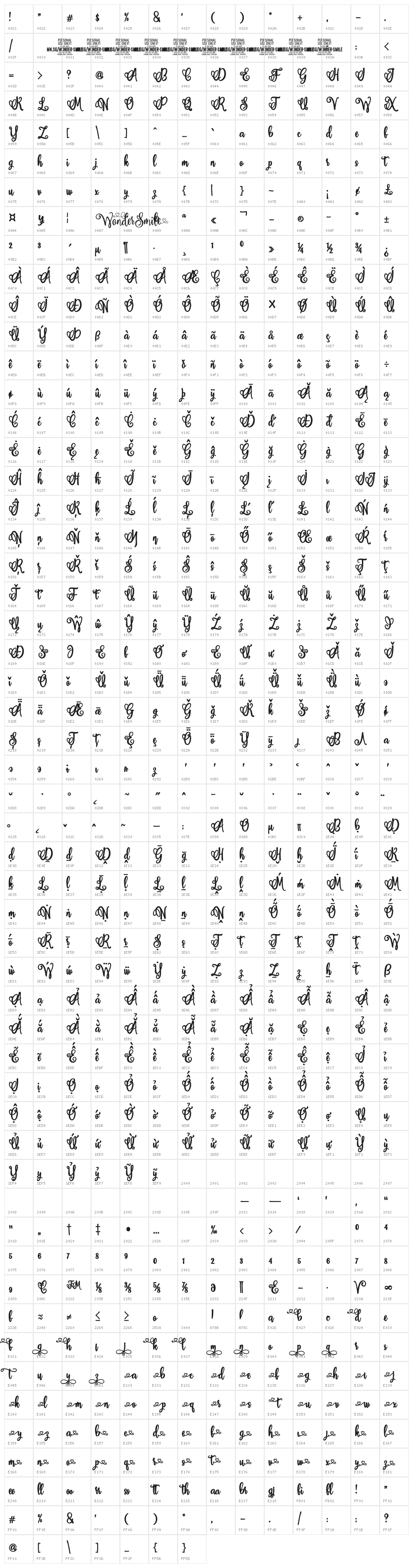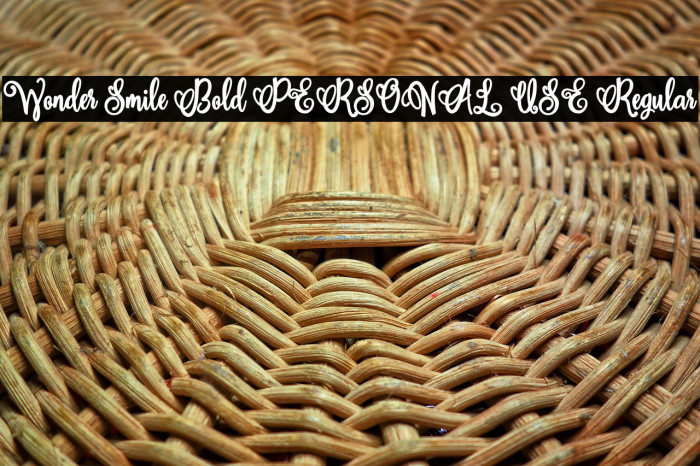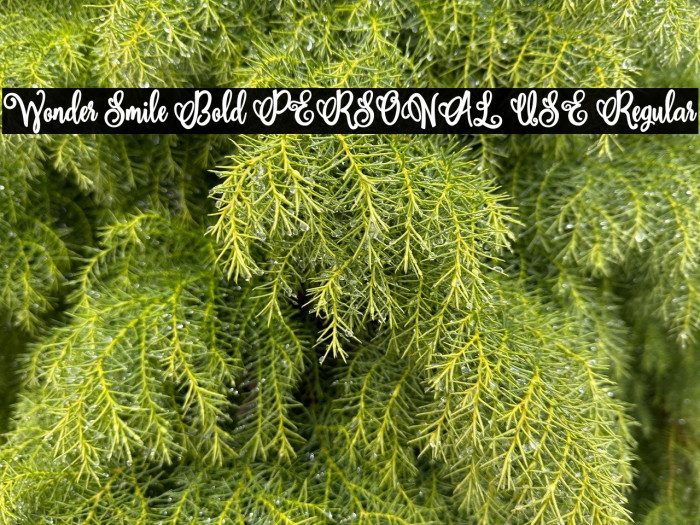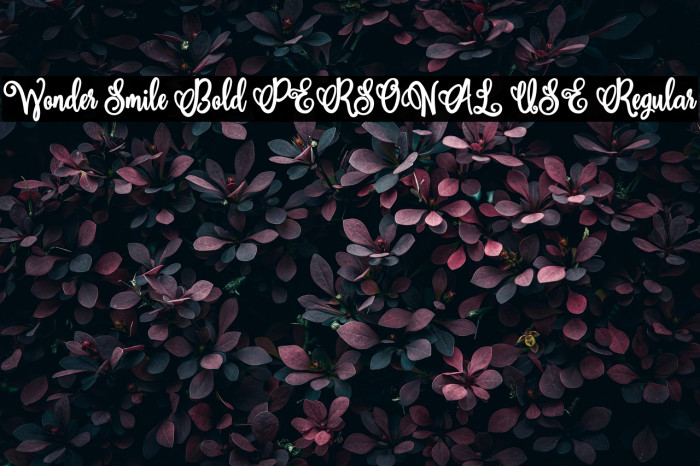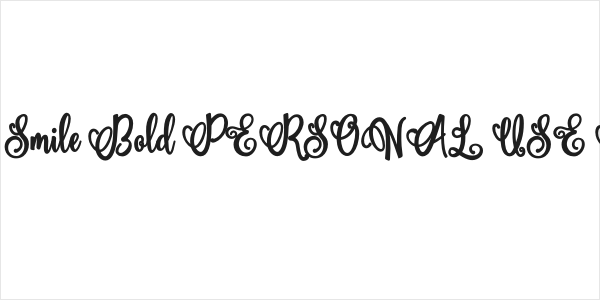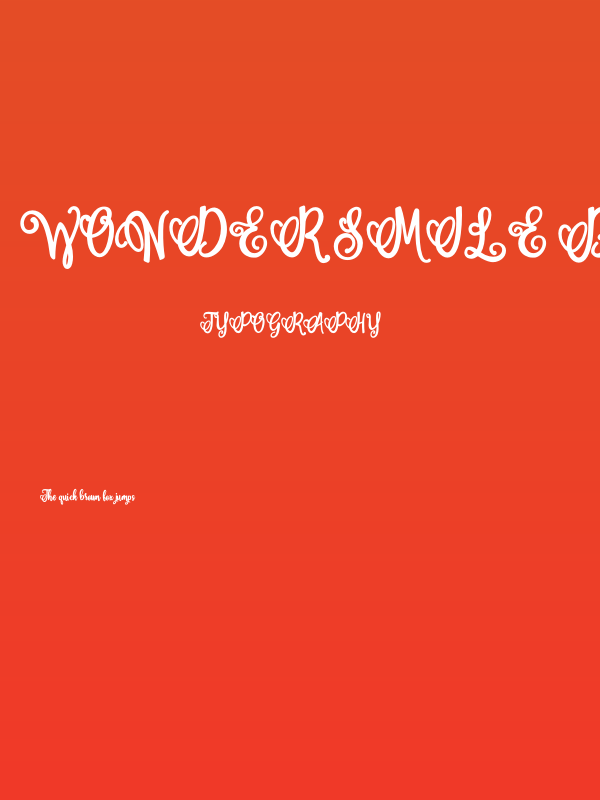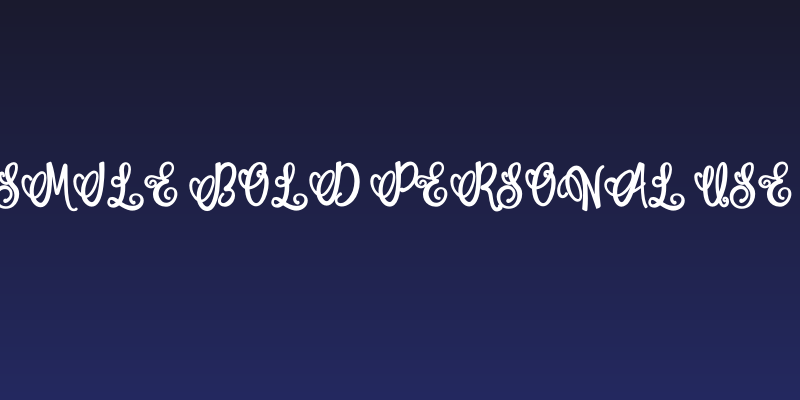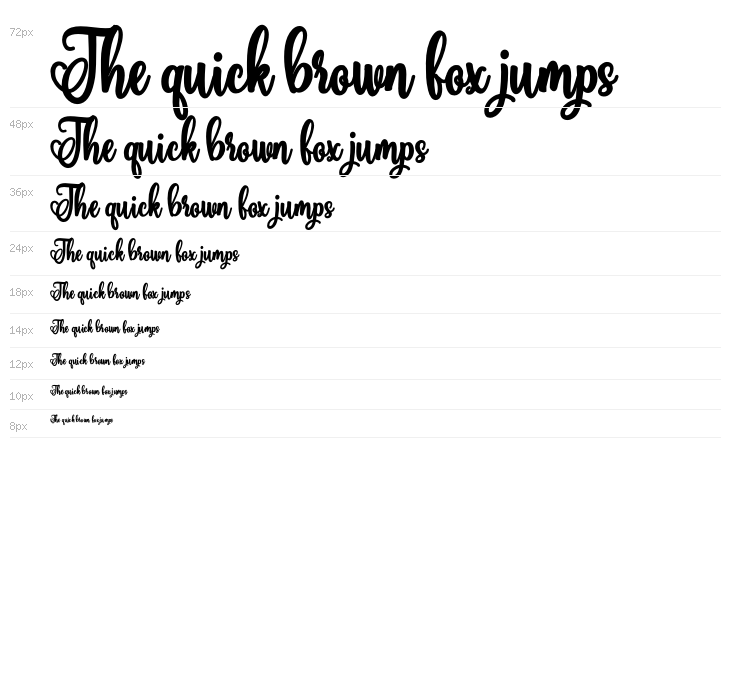
Wonder Smile Bold PERSONAL USE Regular Font
Wonder Smile Bold PERSONAL USE Regular Description
This font features a playful and whimsical script style, characterized by its bold and flowing letterforms. The uppercase letters are adorned with decorative loops and swirls, giving them a unique and artistic flair. The lowercase letters maintain a cohesive style with smooth curves and a slightly exaggerated baseline, enhancing its handwritten appearance. The numerals and special characters are consistent with the overall design, ensuring a harmonious look across all elements. This font exudes a sense of joy and creativity, making it ideal for projects that require a touch of personality and charm.
| Proposed Projects | Ideal for greeting cards, invitations, branding, and playful design projects. |